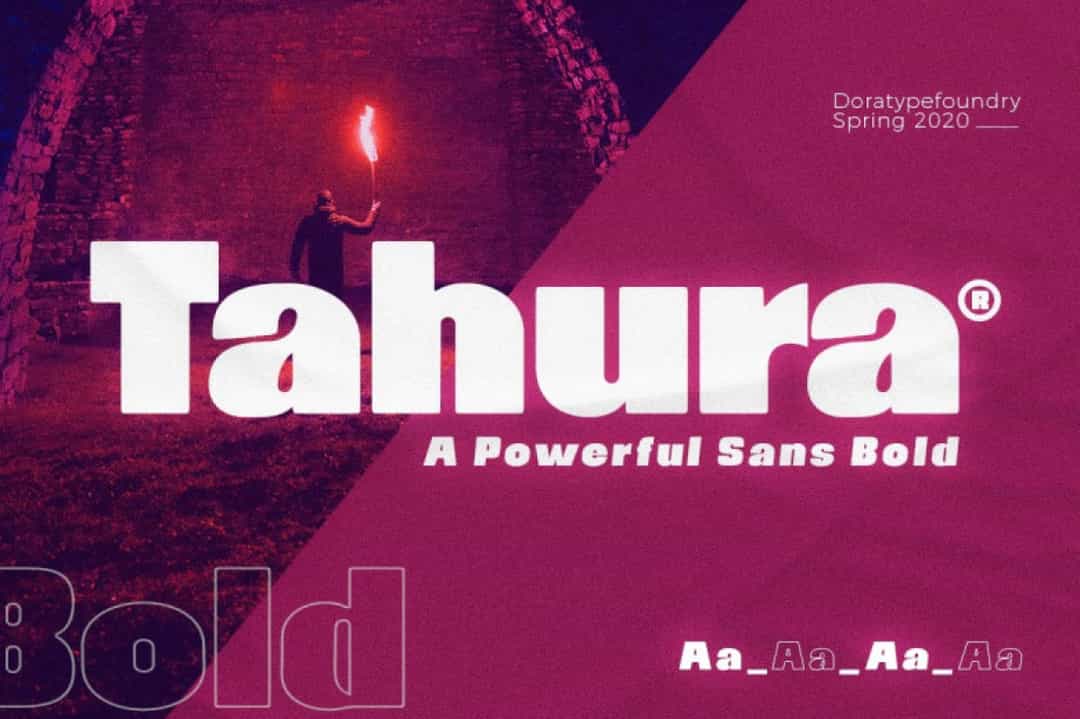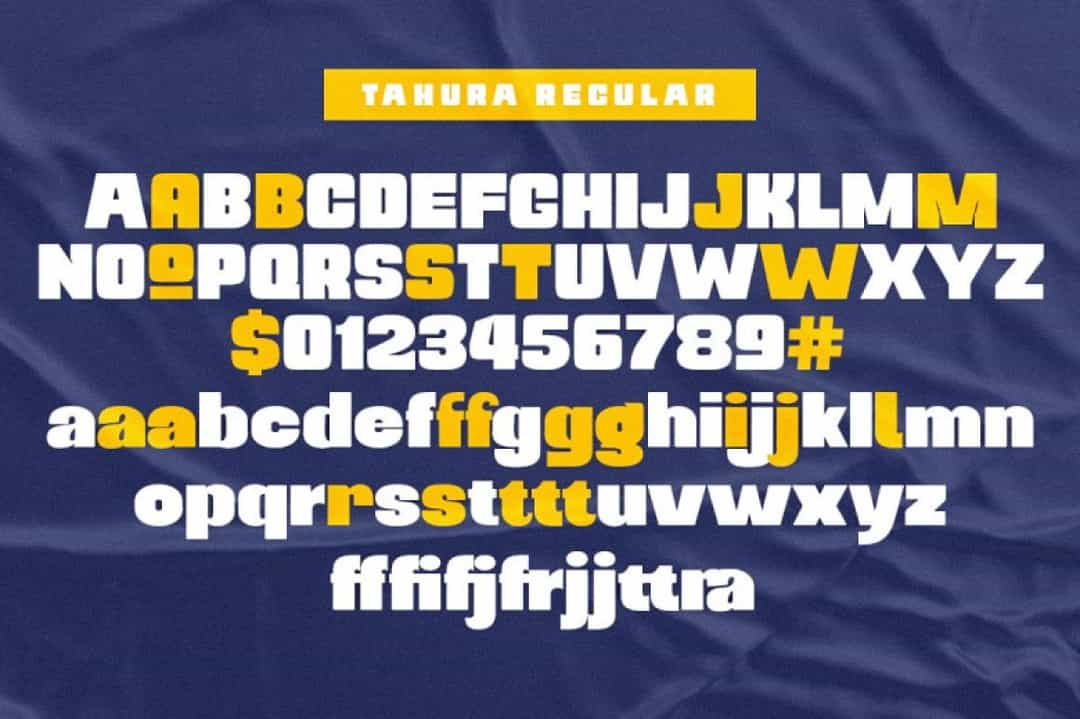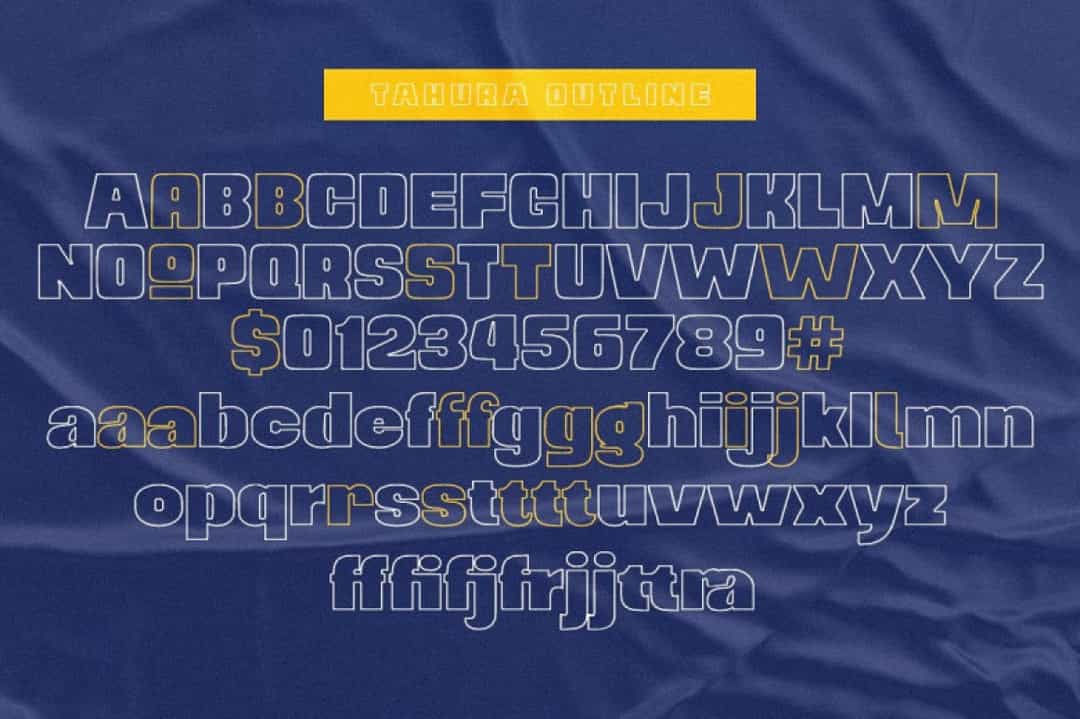
Discover Tahura Font, part of the Sans Serif Display collection—a versatile and unique font perfect for adding a personal touch to your projects. Download it for free and enjoy crafting designs with style, from invitations to social media posts. This font is available exclusively for personal use, giving you the freedom to create without limits. Unlock your creativity with Tahura Font today!
Tahura Sans Font is an eye-catching typeface with strong and bold letterforms designed for use in harsh environments with its flexible touch. Available in four styles – Regular Italic, Regular and Outline Italic; it can also be suited for medium and large scale applications due to the precise shapes created by machines that fly.